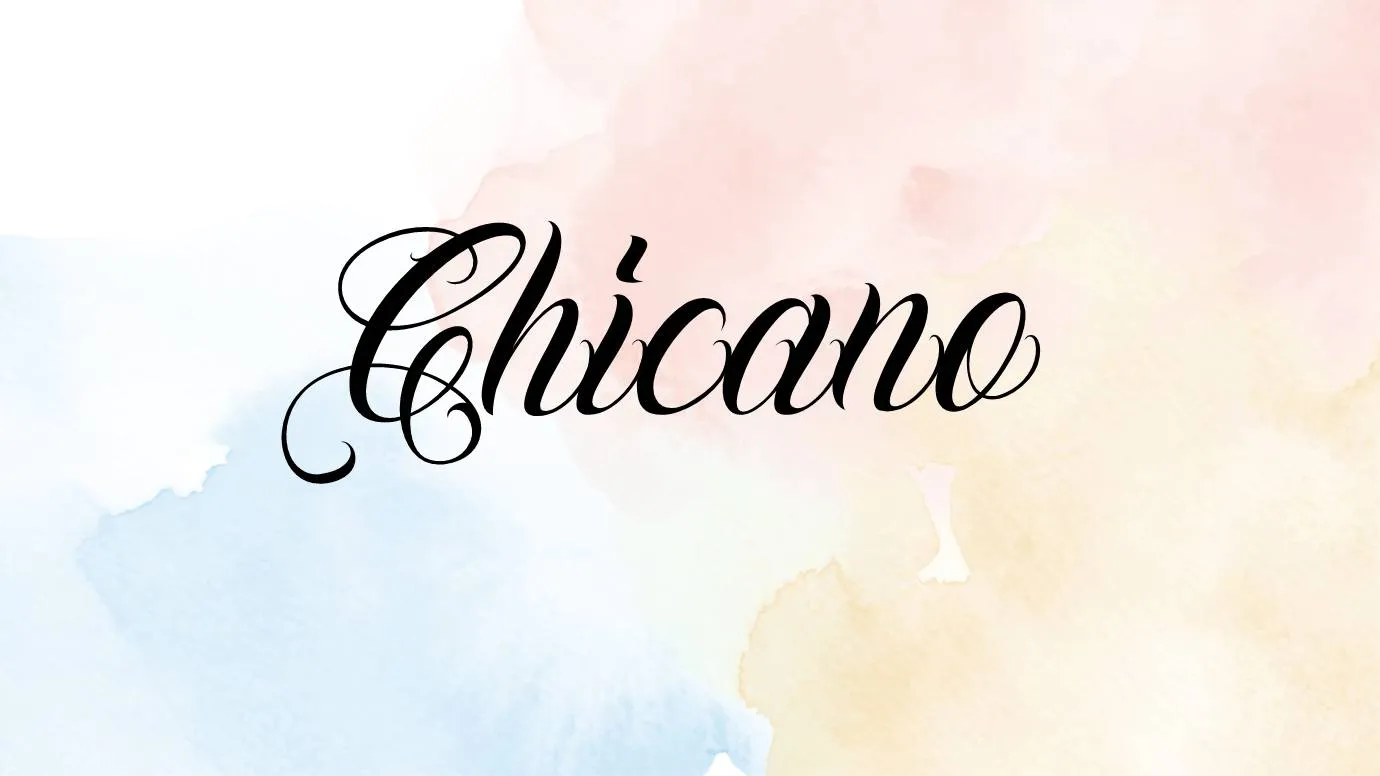
Chicano Font Family is a reputable Indonesian designer Muntab_Art worked on the creation of this font family. When we talk about the category of this typeface then it lies in the classification of the calligraphy family of fonts.
This texture was mainly designed for use in different types of tattoo designs. If you want to check it’s similar then Better font is the best alternative.
Chicano Font